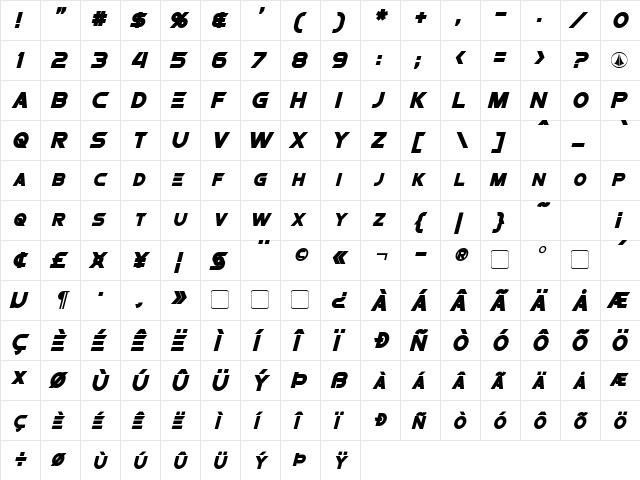
Protoculture Bold Italic
| Foundry | Neale Davidson |
| Designer | Neale Davidson |
Design Context for Protoculture Typeface
Protoculture takes a measured approach to typography — its balanced proportions and neutral character make it a reliable workhorse for both digital and print work. Its italic angle brings a sense of urgency and motion to the letterforms. Its bold stroke weight gives it real presence on the page.
Pro Tip: Use Protoculture for emphasis, pull quotes, and subheadings where its slanted energy can add rhythm to the layout.